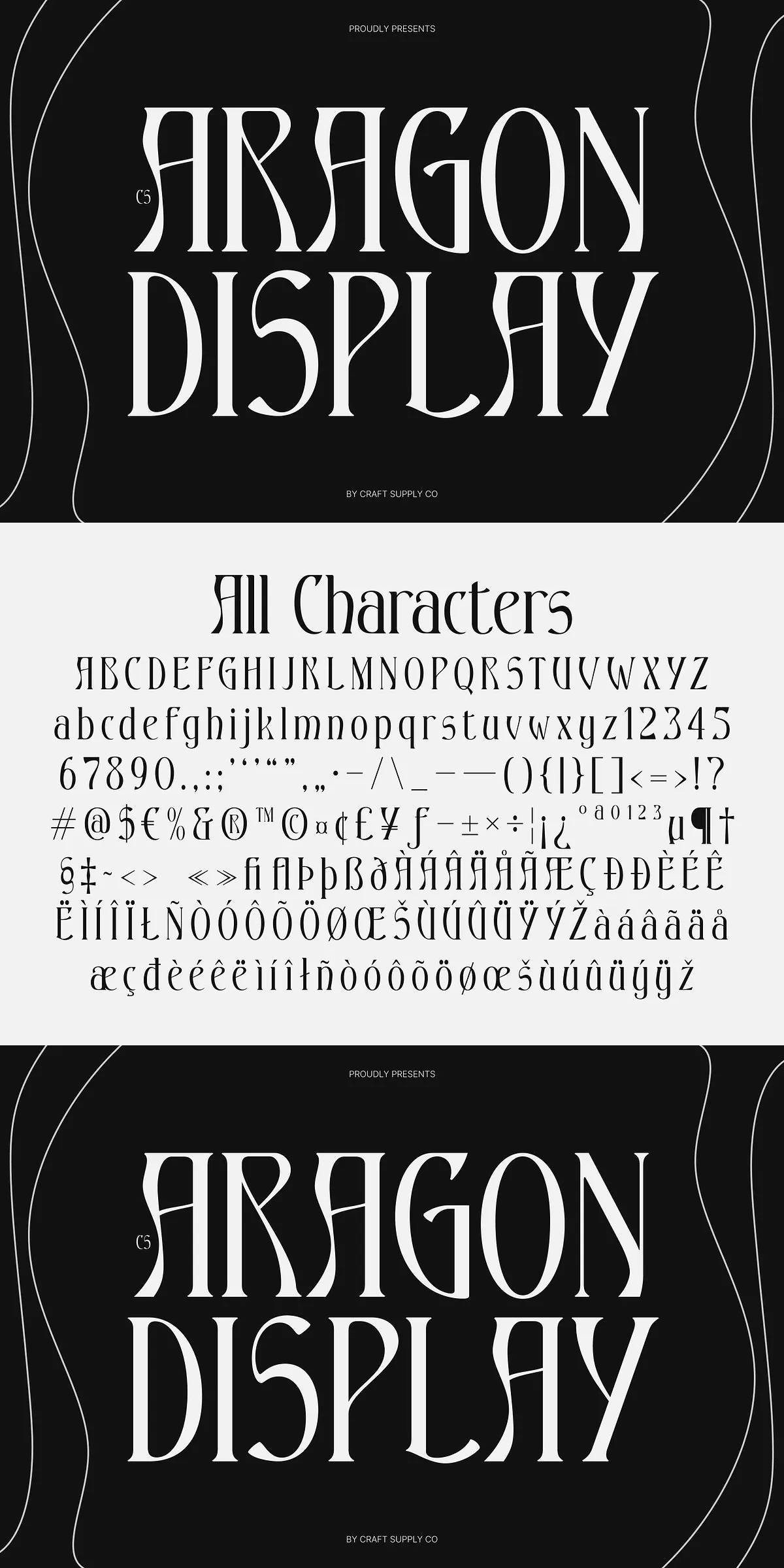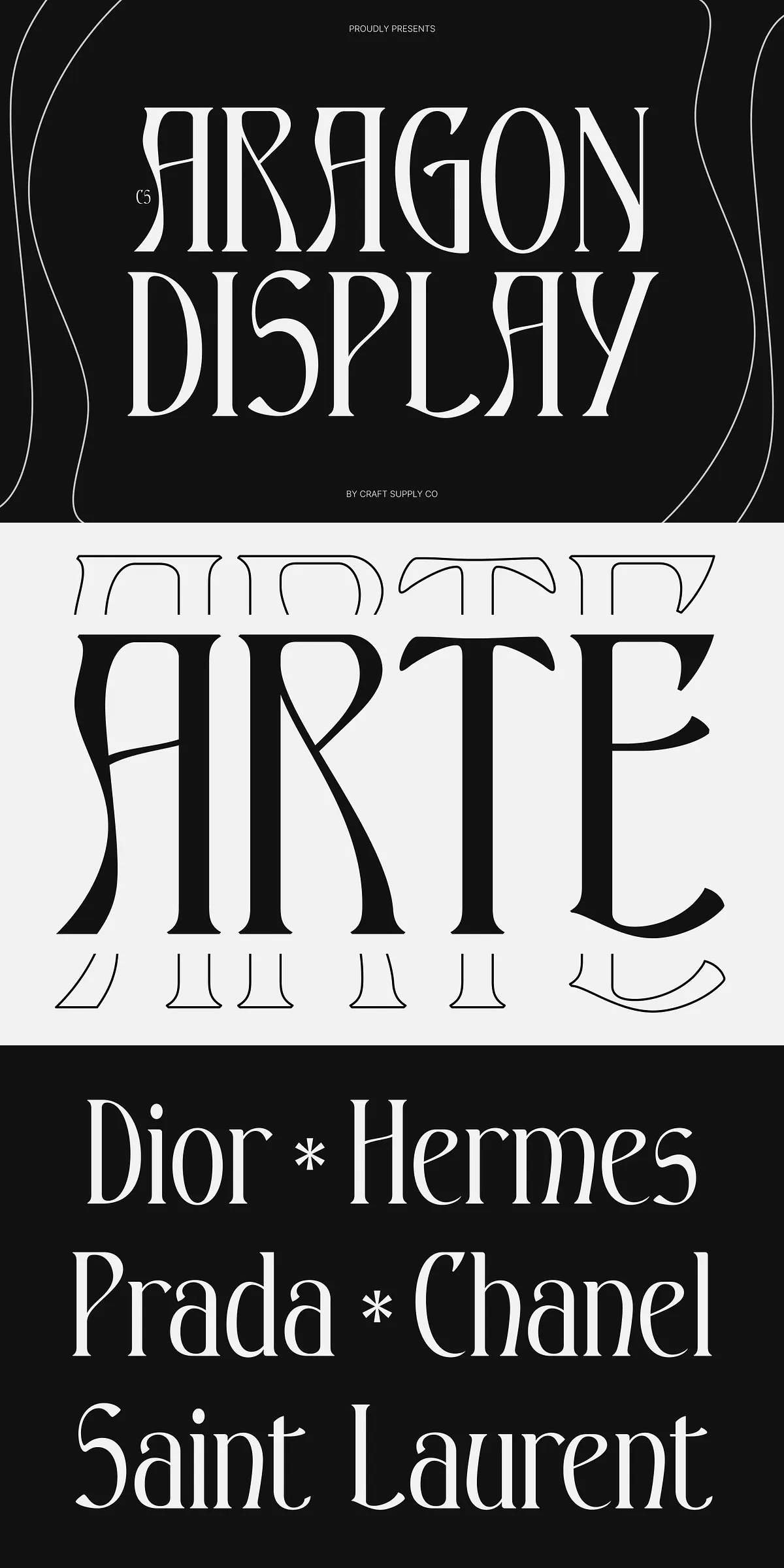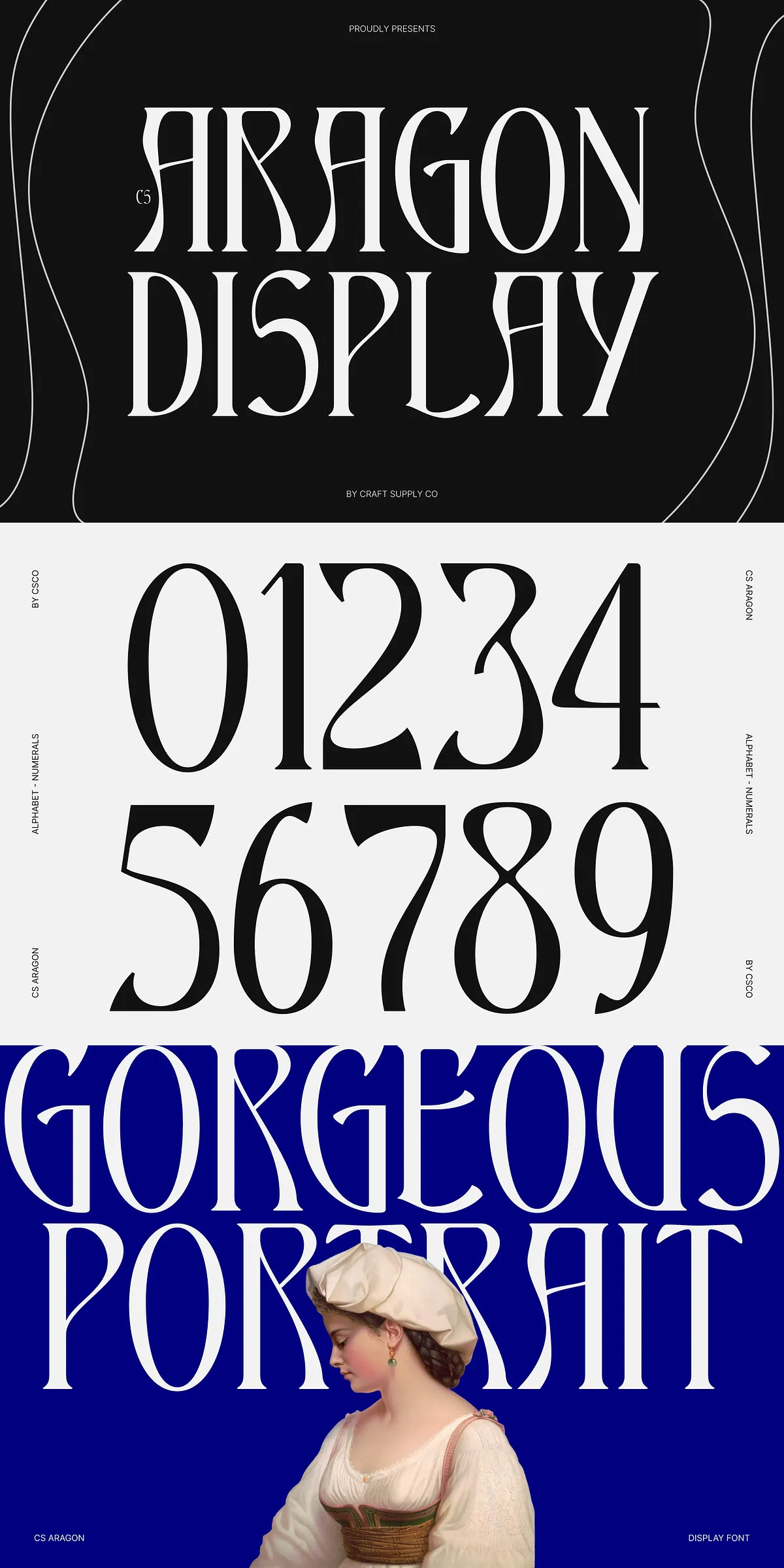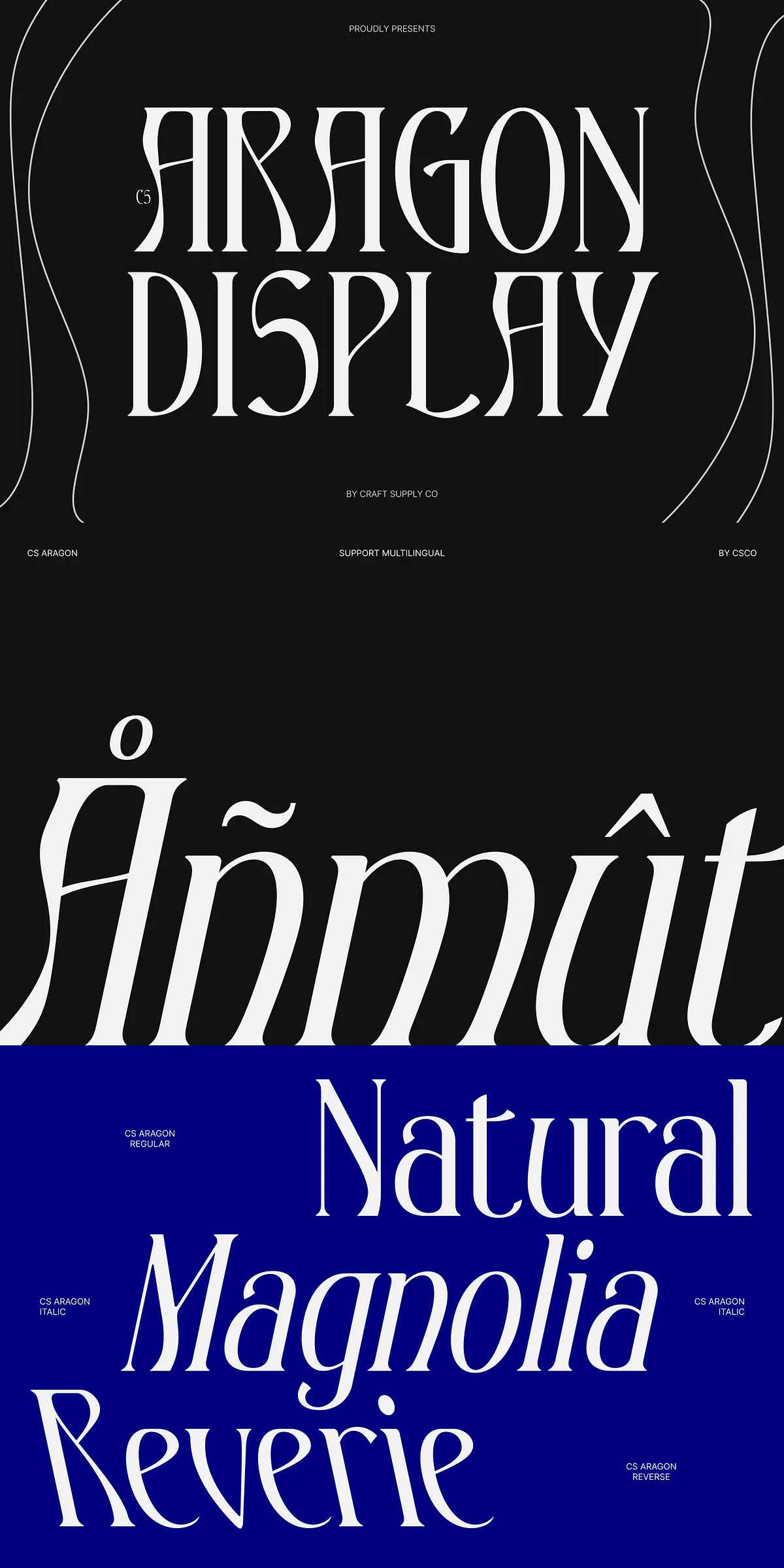
CS Aragon actively combines classic serif construction with engaging, contemporary touches to deliver a typeface that reads elegant and fresh at the same time. Built from familiar letterform foundations, each glyph carries subtle, unexpected curves and lively details that infuse personality into headlines, logos, and editorial layouts. The result: a versatile serif that designers can deploy confidently across visual identities, packaging, posters, and magazine spreads.
Timeless Structure With Unexpected Playful Details
Every character in CS Aragon roots itself in classic serif proportions to ensure clear readability and consistent rhythm. On top of that steady foundation, the typeface introduces selective, confident quirks—slightly rounded terminals, animated stroke endings, and gentle flares—that create movement and warmth. These intentional details make copy feel more expressive while preserving the legibility and compositional stability necessary for professional design systems.
Stylish Yet Relaxed Character For Broad Use
CS Aragon projects a relaxed confidence rather than formality. That approachable voice makes it ideal for brands that want to appear sophisticated without feeling distant. Use CS Aragon to establish a friendly, upscale tone for fashion labels, boutique packaging, lifestyle publications, and creative agencies. The font balances refinement with approachability, helping headlines draw attention while body text sustains comfortable reading.
Complete Font Family Files And Included Styles
- CS Aragon Regular
- CS Aragon Italic
- CS Aragon Reverse Italic
Character Set, Encoding, And OpenType Features
CS Aragon ships with a full uppercase and lowercase set, numerals, punctuation, and accented glyphs for broad multilingual coverage. The font supports standard OpenType features where applicable and uses PUA encoding for easy access to special glyphs in common workflows. Designers will find the character set robust enough for international campaigns and versatile editorial systems.
Practical Features That Enhance Creative Control
CS Aragon includes functional extras that let you refine typographic voice and create distinctive wordmarks. Alternates, italic options, and the Reverse Italic provide typographic contrast and stylistic variety. Use the Reverse Italic as an eye-catching decorative companion in headlines or display treatments, while the regular and italic styles maintain hierarchy and readability in continuous text.
Suggested Use Cases And Pairing Recommendations
Deploy CS Aragon where personality and clarity matter. It works exceptionally well in:
- Brand identity and logotype creation
- Editorial headlines and feature spreads
- Product packaging and label design
- Posters, invitations, and marketing collateral
For balanced compositions, pair CS Aragon with a neutral geometric or humanist sans to anchor long-form body copy and interface elements. Use heavier cuts of CS Aragon for display statements and lighter cuts for supportive subheads or short captions to preserve hierarchy and contrast.